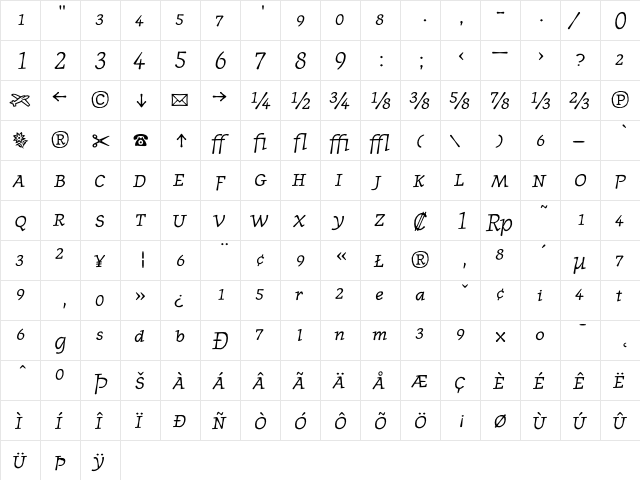
JournalItalicFractions Regular
Design Context for JournalItalicFractions Typeface
JournalItalicFractions offers clean, dependable letterforms without strong stylistic allegiance, making it a practical choice for designers who need flexibility. Its italic angle brings a sense of urgency and motion to the letterforms.
Pro Tip: Try JournalItalicFractions for annotation and caption copy alongside an upright companion — the contrast in angle creates a dynamic but ordered typographic system.